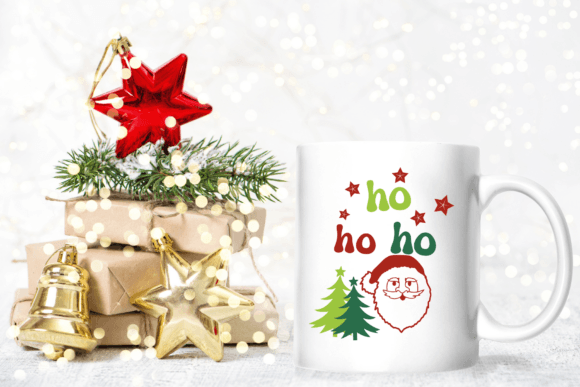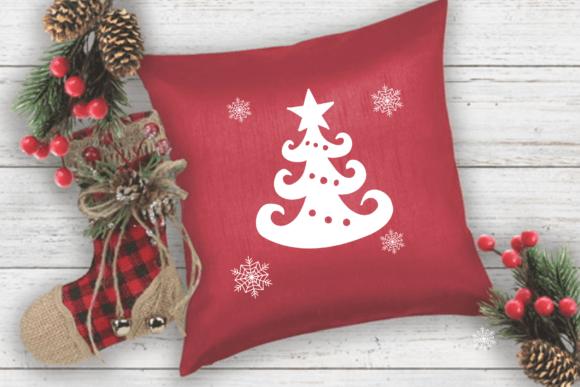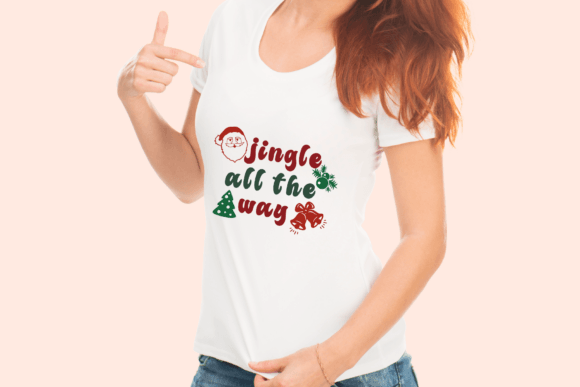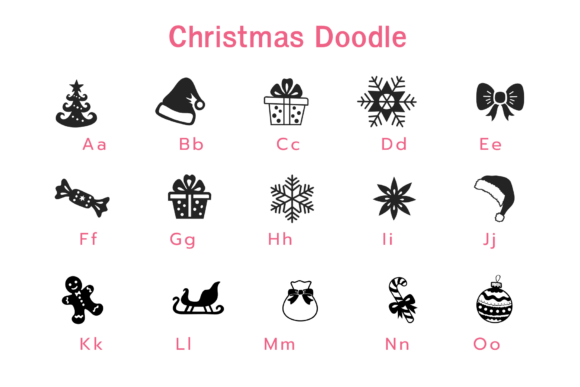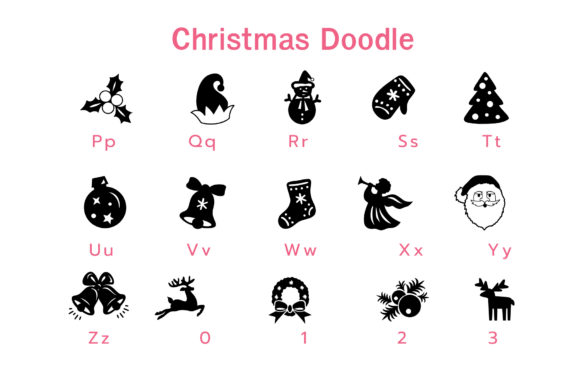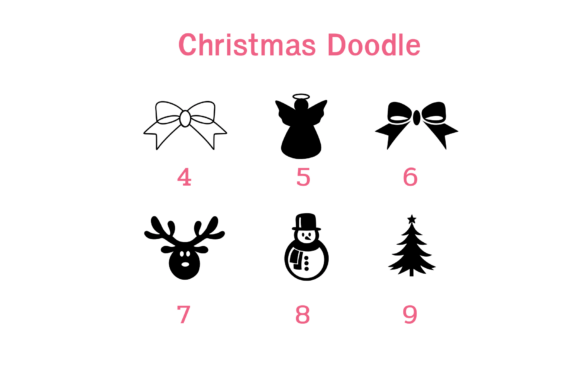
Deck the Halls with Joy and Creativity
As the snowflakes start to fall and the festive lights twinkle, many of us feel an overwhelming urge to get creative. Whether it’s decorating the tree, baking holiday treats, or designing a special card for loved ones, Christmas is the perfect time to unleash our inner artist. And what’s a holiday project without a dash of festive flair? That’s where the Christmas Doodle Font comes in – a beautiful collection of festive doodle dingbats that will add a splash of holiday color to your designs.
Perfect for adding a fun and quirky atmosphere to your Christmas-themed projects, this delightful font is a must-have for designers looking to spread the joy of the season. With the Christmas Doodle Font, you’ll be able to let your creativity shine during this joyous time of the year, and create truly unique and special projects that will be cherished for years to come.
Christmas Doodle Font Key Features
- Unique Characteristics: This font features a whimsical, hand-drawn design with intricate doodles and ornaments, adding a touch of festive magic to any holiday-themed project.
- Characters and Glyphs: The Christmas Doodle Font includes a wide range of characters, including uppercase and lowercase letters, numbers, punctuation marks, and special symbols, making it suitable for various design applications.
Designer Review: Christmas Doodle Font
Overall, I think the Christmas Doodle Font is a fun and playful addition to any holiday project. ✨ It’s perfect for creating a whimsical and festive atmosphere, especially in digital designs like social media posts, newsletters, and websites.
The font’s unique doodle style and creative characters make it stand out from more traditional holiday fonts. ✨ It’s great for adding a personal touch to designs and can help brands stand out during the holiday season. I also appreciate the variety of characters and symbols included, which can be used to create custom illustrations and graphics.
- ⚠️ Limited character set: While the font includes a wide range of holiday-themed characters, it may not be suitable for projects that require a lot of text or complex typography.
- ⚠️ May not be suitable for formal designs: The doodle style may be too casual for formal or professional designs, such as business reports or corporate communications.
Overall, I think the Christmas Doodle Font is a great addition to any holiday design project. While it may have some limitations, its unique style and creative characters make it a fun and playful choice for designers looking to add some holiday cheer to their work.